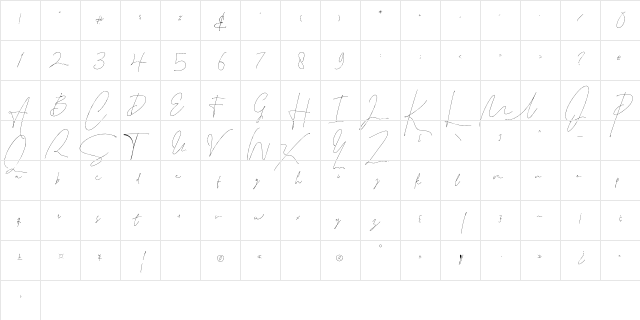
Leonetta Script
| Style | Script |
| Foundry | Angin Studio |
| Designer | Ahmad Aswin & David Novrian |
Design Context for Leonetta Typeface
Leonetta brings a calligraphic fluidity to the page — its connecting strokes and expressive curves give it an unmistakably human quality.
Font Pairing: Combine Leonetta with a simple geometric sans for maximum contrast — the tension between flowing curves and clean structure is a classic typographic pairing.
Pro Tip: Use Leonetta for short runs of text — names, titles, or taglines. Extended body copy in script faces tires the eye quickly.